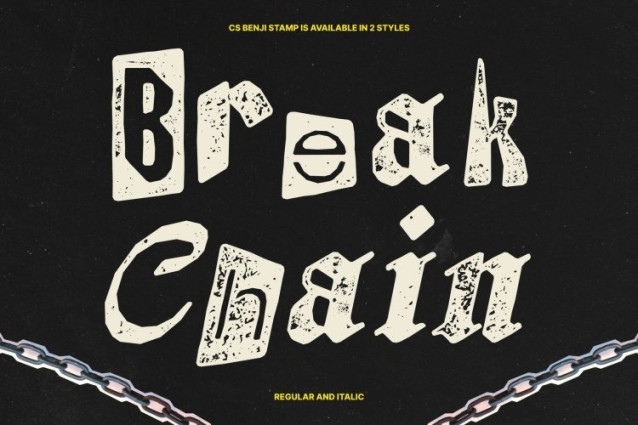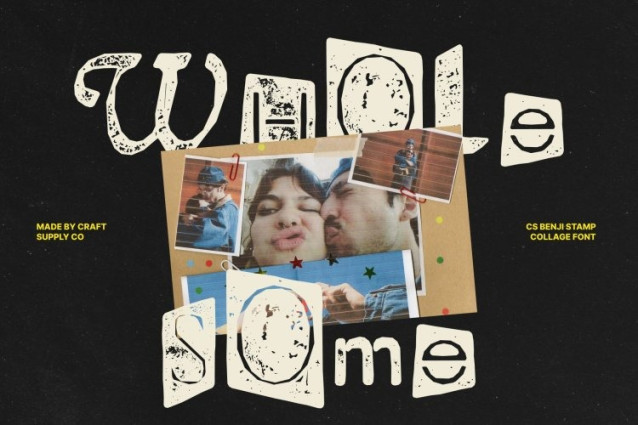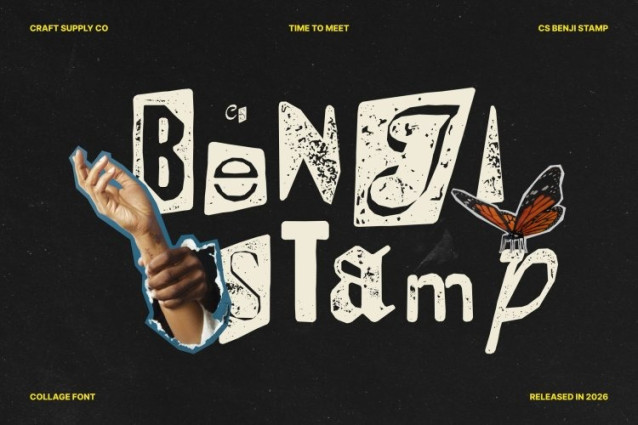
CS Benji Stamp Font
CS Benji Stamp Font This is a distinctive display font inspired by the bold, playful spirit of ransom notes and collage art. Built from an eclectic mix of letterforms, this font embraces visual diversity through varied shapes, textures, and stylistic contrasts. The result is a lively, expressive design that feels spontaneous, artistic, and full of personality perfect for projects that aim to stand out with creative confidence.
Vibrant Texture with a Vintage Stamp Feel
Enhanced with a stamp effect, CS Benji Stamp gains an extra layer of character through rough textures, uneven ink impressions, and worn details. This stamped treatment adds a vintage, handmade quality reminiscent of old cut-and-paste posters, DIY zines, and analog print techniques. The textured surface softens the bold collage look with an artistic, aged charm that feels tactile and authentic.
Irregular Shapes for Expressive Freedom
The unconventional, uneven letterforms give a free-spirited and rebellious attitude. Each character feels intentionally mismatched, celebrating imperfection and creative chaos. This irregularity reflects the raw energy of collage art, making every word feel dynamic, playful, and visually engaging.
Perfect for Creative, Youthful, and Artistic Projects
Ideal for music posters, album covers, event flyers, street-style branding, and experimental visuals, thrives in designs that emphasize individuality and bold expression. Its combination of collage aesthetics and vintage stamp texture creates a powerful visual identity funky, artistic, and unapologetically original.